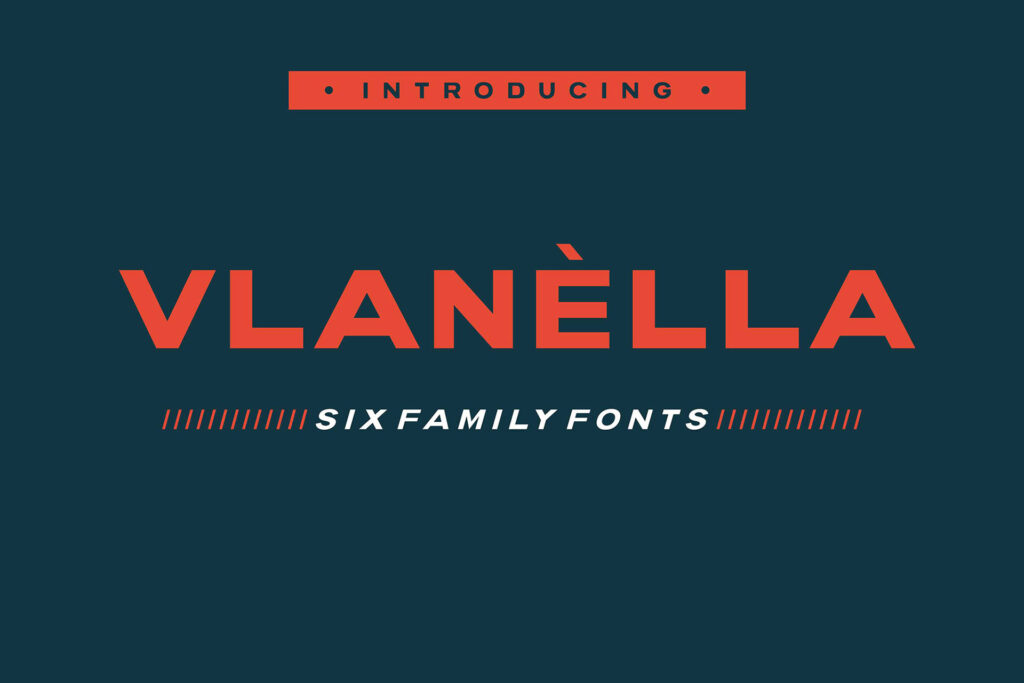
Vlanèlla is a stylish font family with 6 different styles. It is a bold, elegant typeface and can work for both modern and vintage projects. This sans serif font is very versatile can fit seamlessly into your digital and print projects.